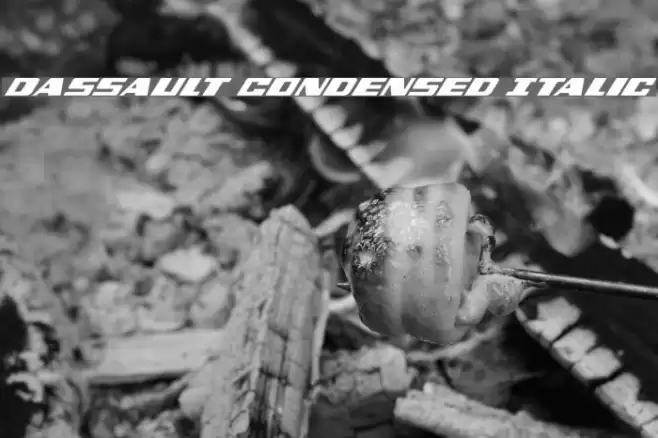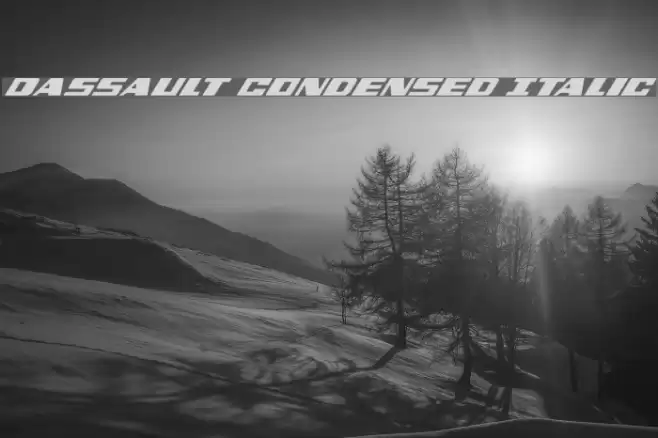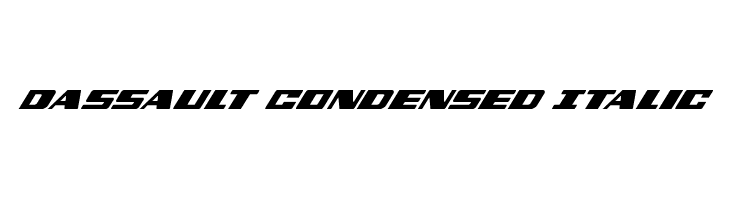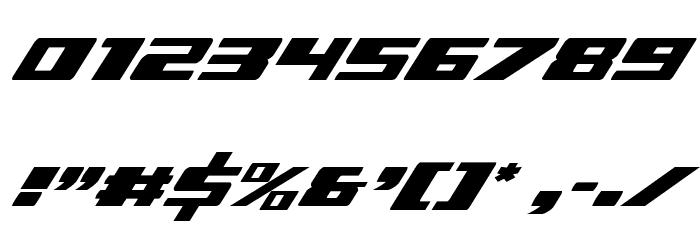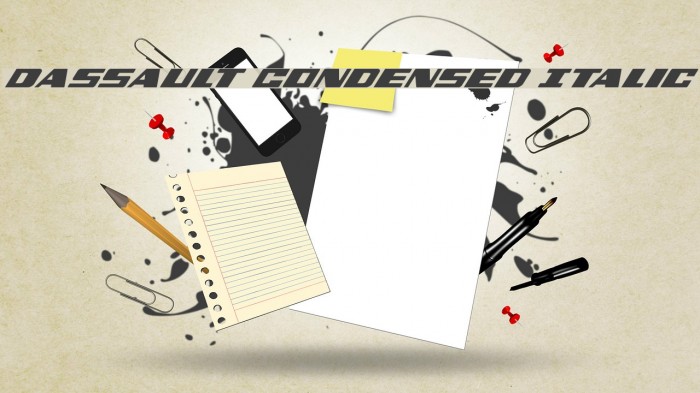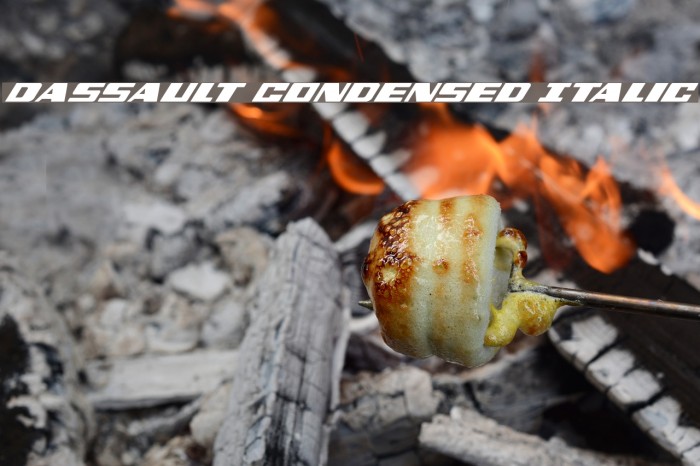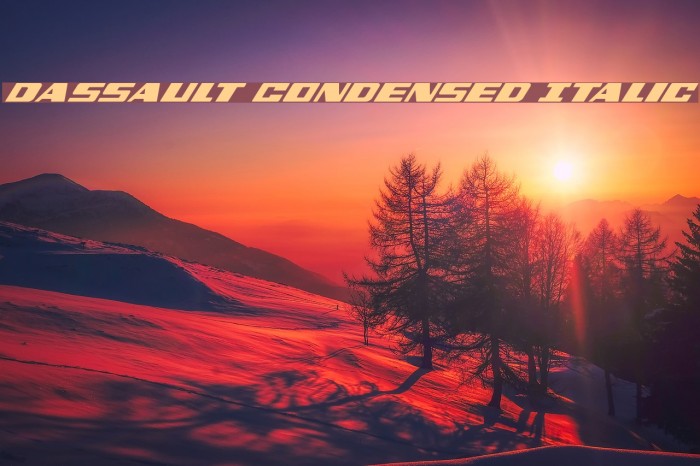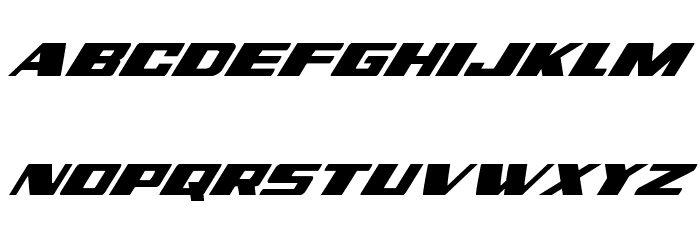
Dassault Condensed Italic Font
Dassault Condensed Italic Description
This font features a bold, italicized style with a condensed width, giving it a dynamic and energetic appearance. The characters are sharply angled, creating a sense of motion and speed. The uppercase letters are particularly striking, with a strong geometric influence that enhances their boldness. The numbers and special characters maintain this cohesive style, ensuring consistency across all elements. The overall design is modern and sleek, making it suitable for projects that require a strong visual impact.
A bold, italicized, and condensed font with a dynamic and modern style from Uncategorized fonts.
- Proposed Projects: Ideal for use in branding, sports team logos, automotive designs, and dynamic advertising campaigns.
- Character Spacing: Tight
- Use Case: Logos, Headlines, Advertising